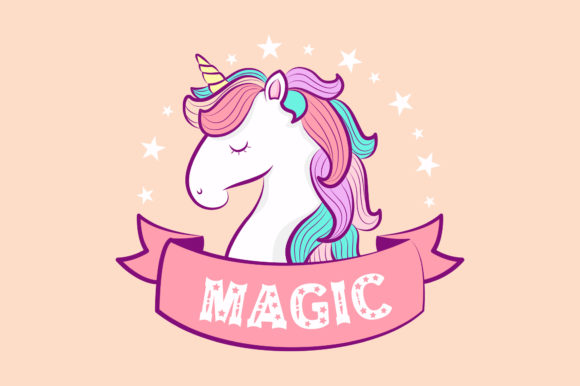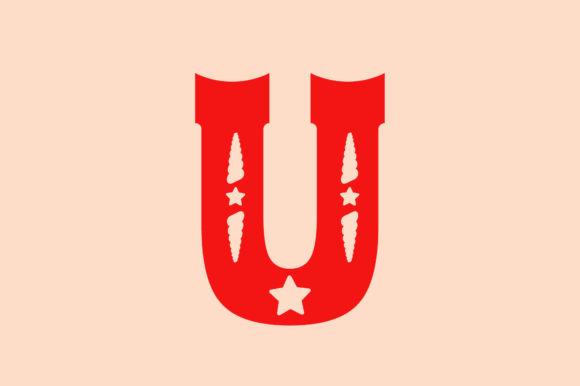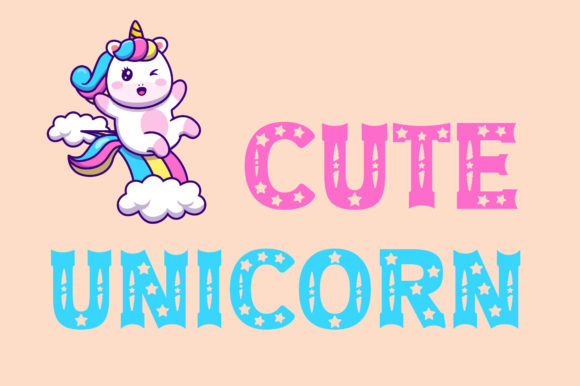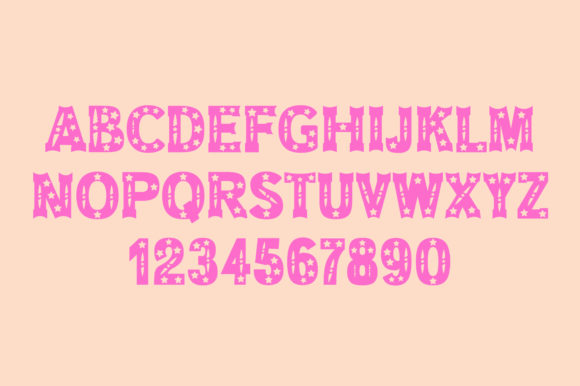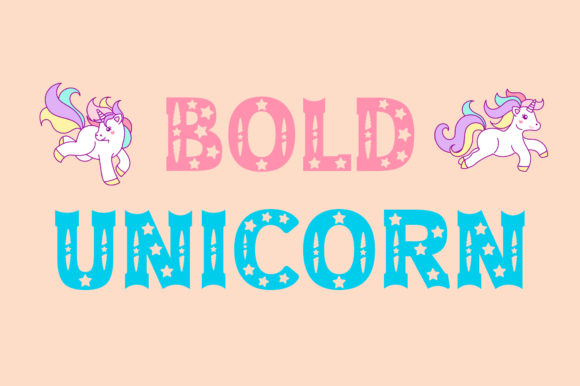
Introducing Bold Unicorn Font: The Perfect Addition to Your Whimsical Designs
Are you a designer or crafter looking for a font that can add a touch of magic to your creations? Look no further than Bold Unicorn Font! This sweet and playful display font is perfect for children-themed designs, especially when combined with bright colors. In this article, we’ll dive into the world of Bold Unicorn Font and explore its features, uses, and benefits.
What is Bold Unicorn Font?
Bold Unicorn Font is a display font designed to bring a sense of wonder and enchantment to your designs. Its bold and playful style makes it perfect for headlines, titles, and other design elements that need to stand out. The font’s whimsical feel is sure to delight children and adults alike, making it an excellent choice for a wide range of design projects.
Key Features of Bold Unicorn Font
- Playful and Whimsical Design: Bold Unicorn Font features a unique and imaginative design that’s sure to capture the attention of your audience.
- Bold and Easy to Read: The font’s bold style makes it easy to read, even at smaller sizes, ensuring that your message gets across clearly.
- Perfect for Children-Themed Designs: The font’s sweet and playful feel makes it an excellent choice for designs aimed at children, such as kids’ party invitations, children’s book titles, and more.
- Works Well with Bright Colors: Bold Unicorn Font looks amazing when paired with bright, vibrant colors, adding an extra layer of fun and excitement to your designs.
Uses for Bold Unicorn Font
Bold Unicorn Font is versatile and can be used in a variety of design projects, including:
- Kids’ Party Invitations: Create eye-catching invitations that set the tone for a fun and magical celebration.
- Children’s Book Titles: Add a touch of whimsy to your book titles and make them stand out on bookshelves.
- Crafting and DIY Projects: Use Bold Unicorn Font to add a personal touch to your crafting and DIY projects, such as signs, banners, and more.
- Digital Graphics and Social Media: Add a playful touch to your digital graphics and social media posts, making them more engaging and shareable.
Benefits of Using Bold Unicorn Font
By incorporating Bold Unicorn Font into your designs, you’ll enjoy several benefits, including:
- Instant Attention-Grabber: The font’s bold and playful style is sure to grab the attention of your audience and draw them in.
- Emotional Connection: The whimsical feel of Bold Unicorn Font can help create an emotional connection with your audience, making your designs more memorable and impactful.
- Versatility: The font’s versatility means you can use it in a wide range of design projects, from digital graphics to print materials.
Bold Unicorn Font is a sweet and playful display font that’s perfect for children-themed designs, especially when combined with bright colors. Its bold and whimsical style makes it an excellent choice for designers and crafters looking to add a touch of magic to their creations. With its versatility, ease of use, and attention-grabbing style, Bold Unicorn Font is sure to become a favorite in your design toolkit.